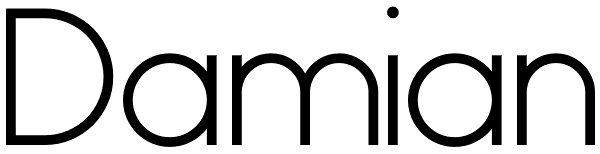
Damian
Damian is a font designed with simplicity in mind and a hint of flare to catch the attention of the user. The sans serif style is based off of the geometrical features of Futura and Univers. With the focus on the circle creating the forms this font...